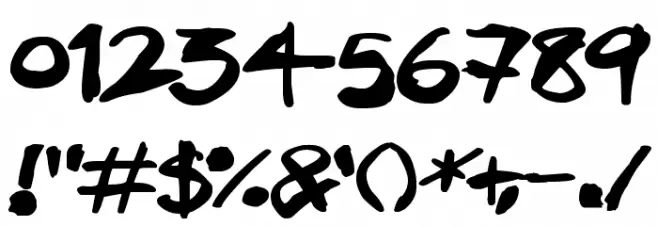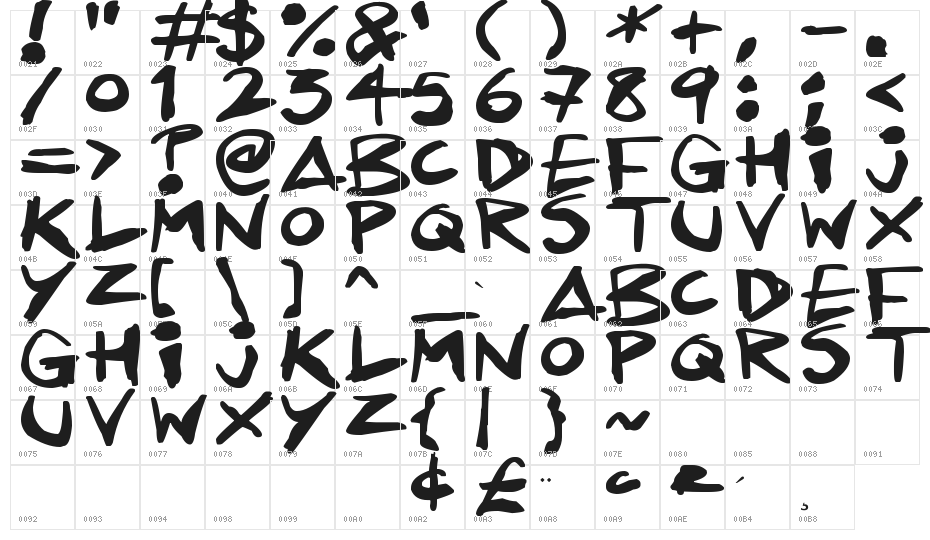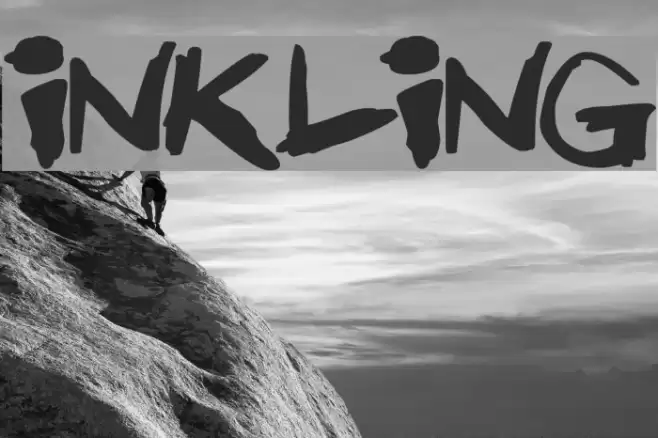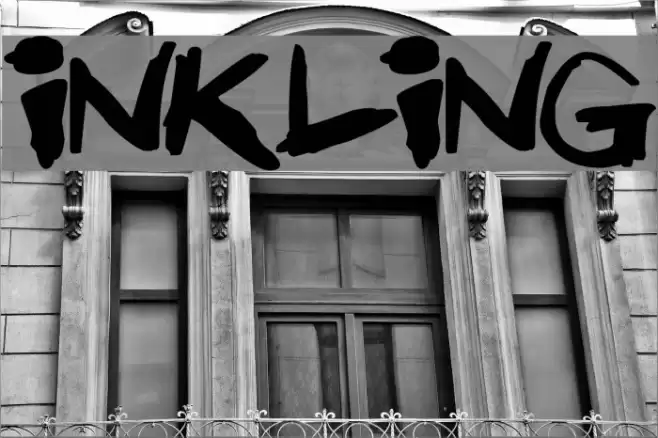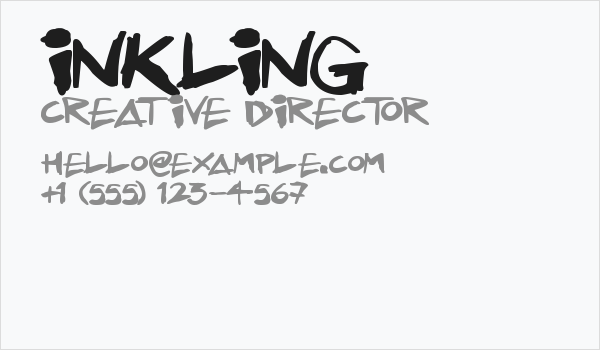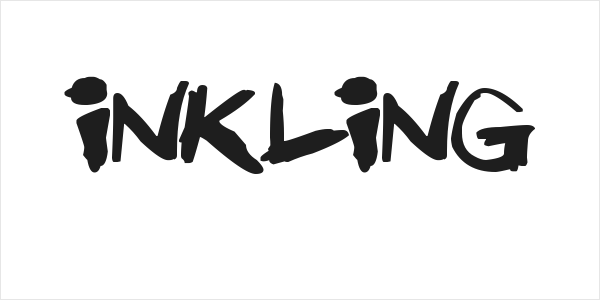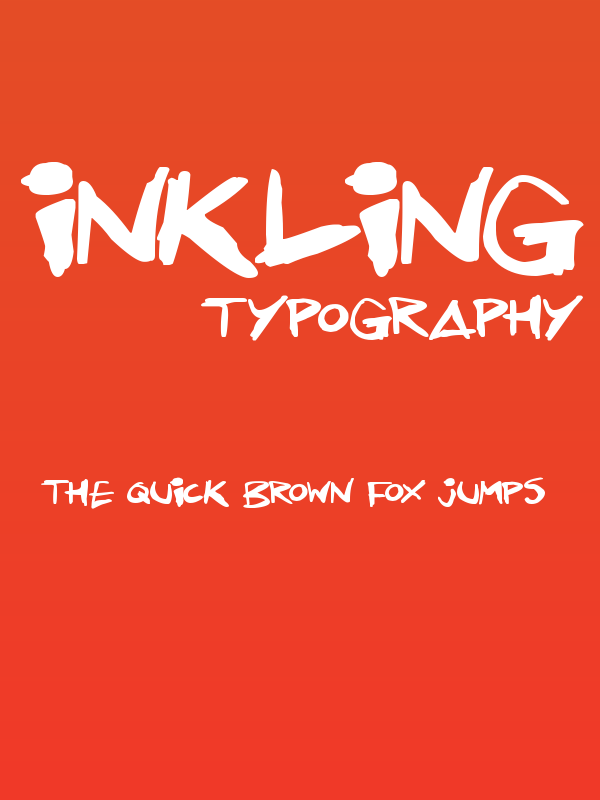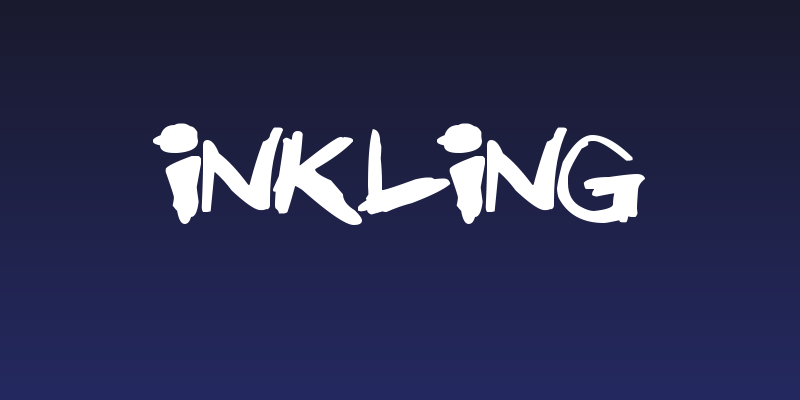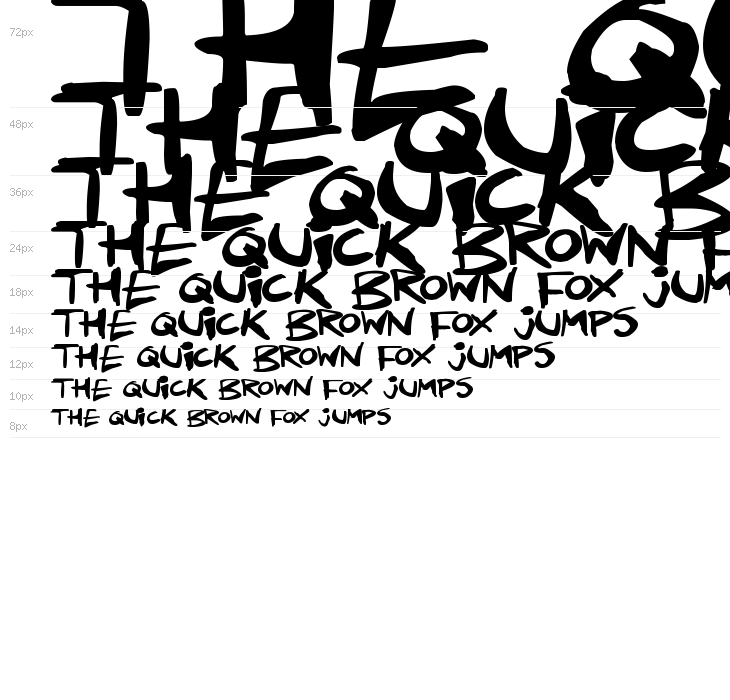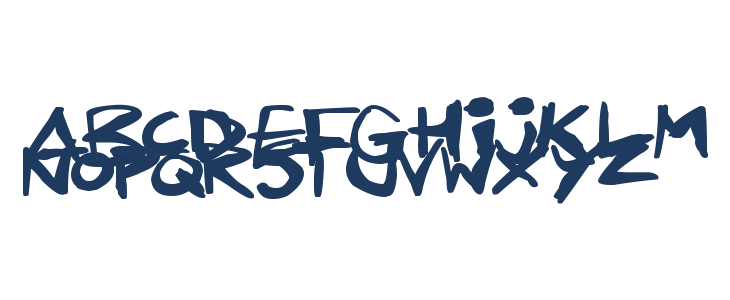
Inkling Font
Inkling Description
This font exudes a bold, energetic style with its thick, brush-like strokes that give it a dynamic and expressive appearance. The characters are slightly irregular, adding a sense of movement and spontaneity. The uppercase and lowercase letters maintain a consistent weight, contributing to a cohesive look. Numbers and special characters are equally bold, ensuring they stand out. The overall design is reminiscent of graffiti or street art, making it ideal for projects that require a modern, edgy feel. Its unique style makes it suitable for creative and artistic applications.
| Overall Style | Modern, Edgy |
| Proposed Projects | Ideal for street art designs, posters, album covers, and creative branding. |